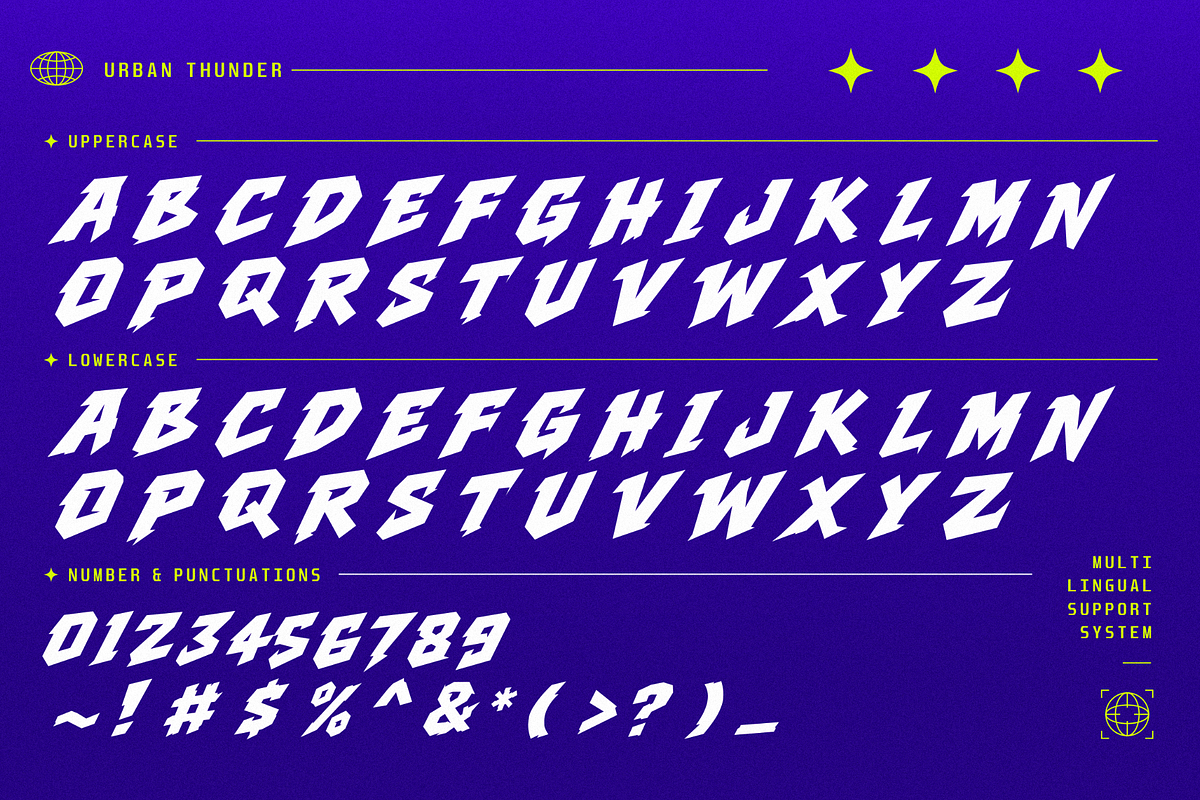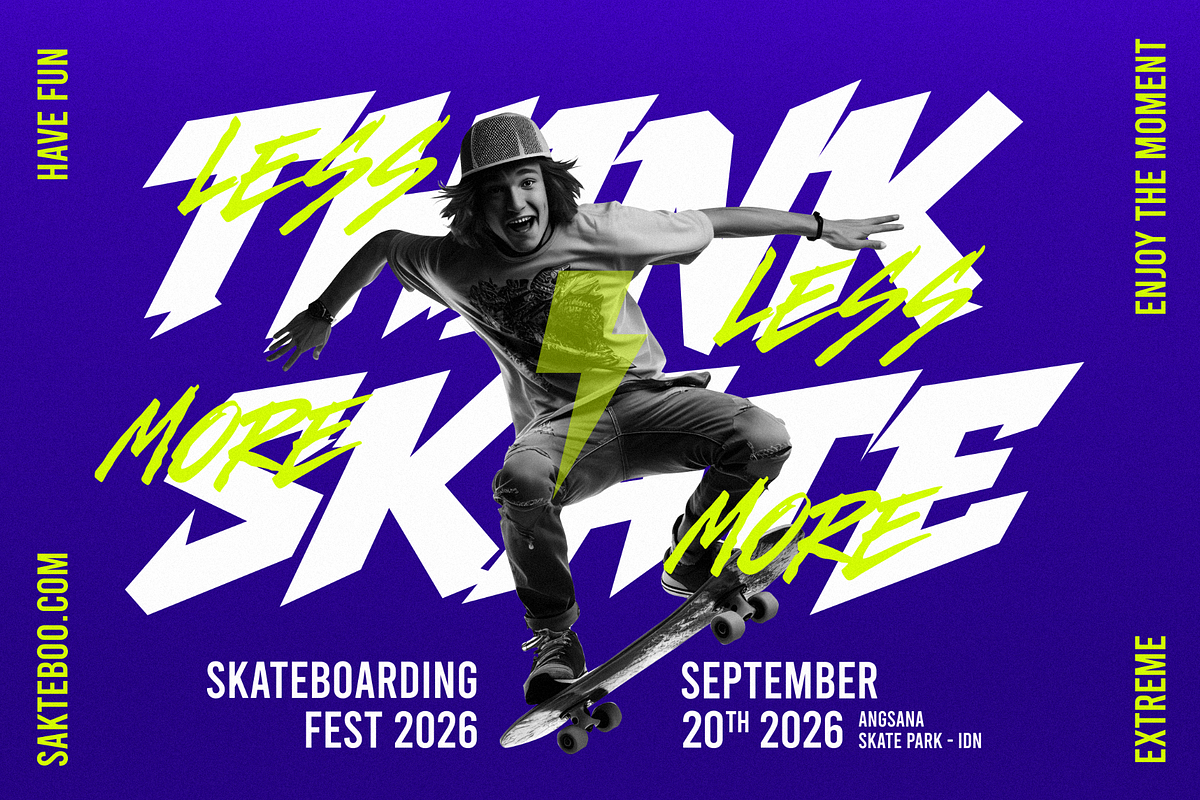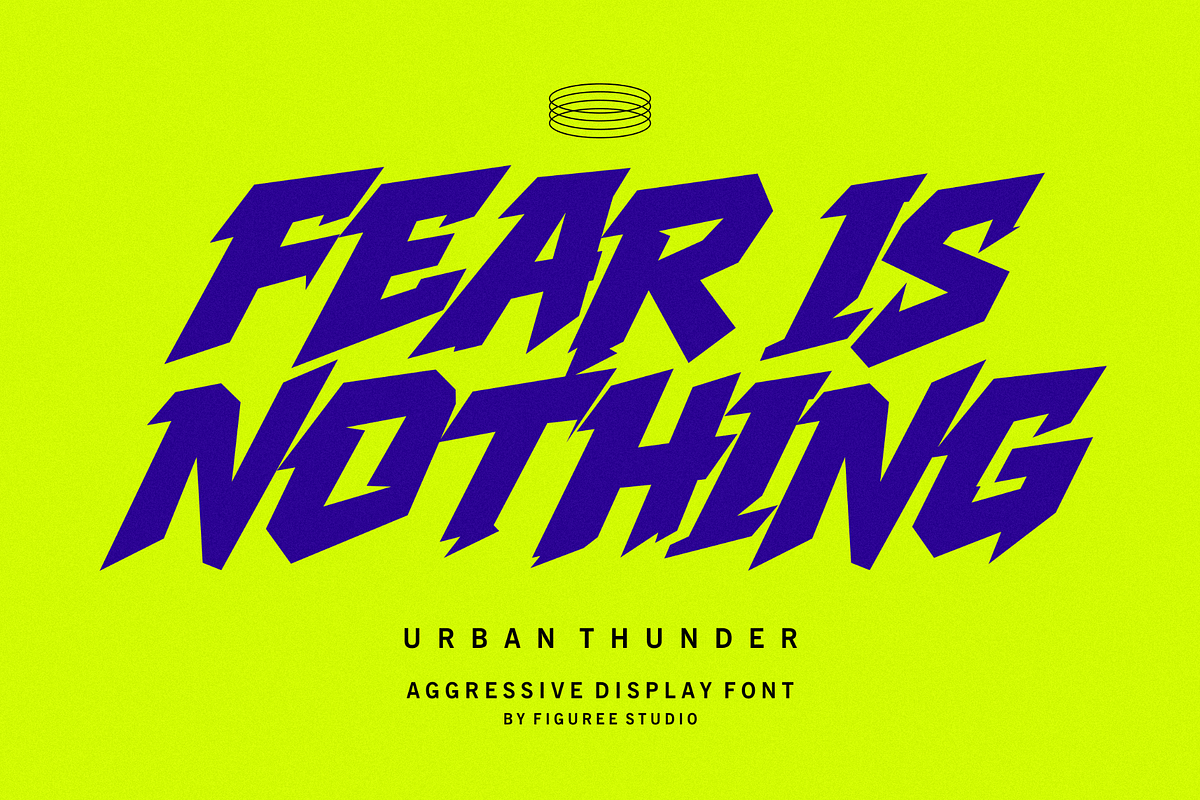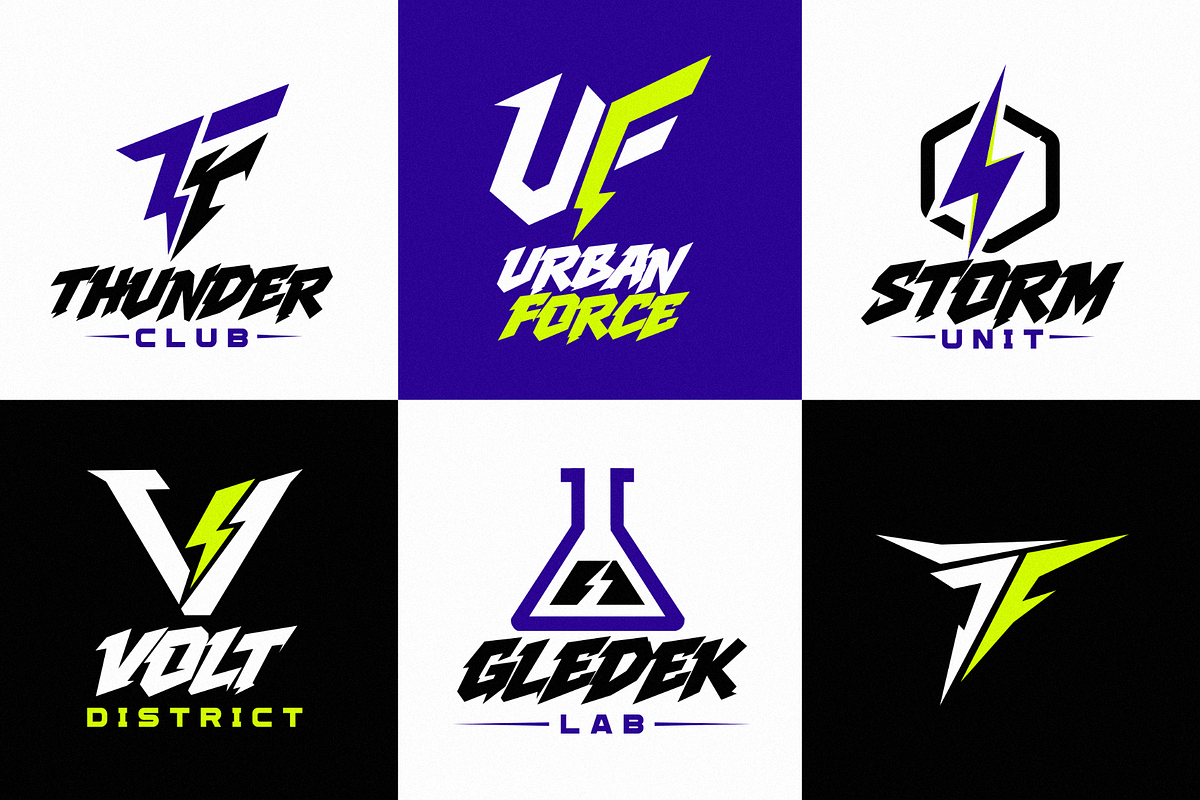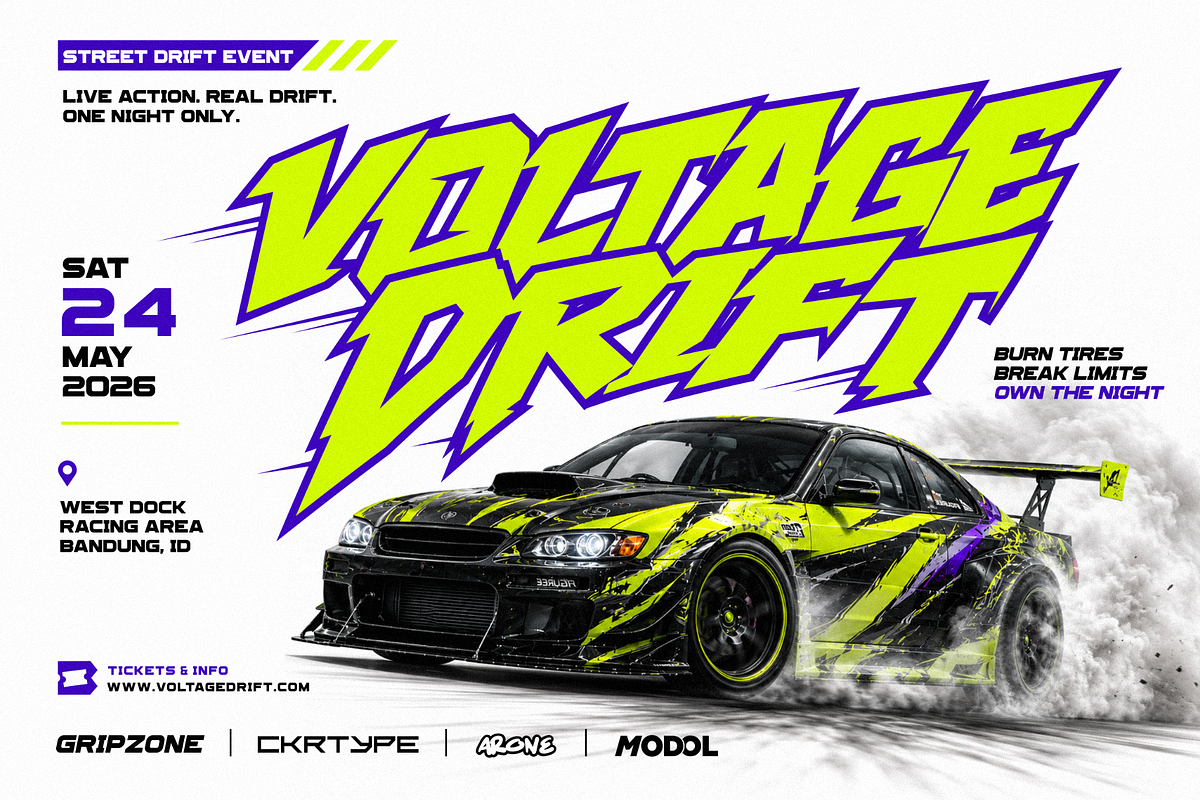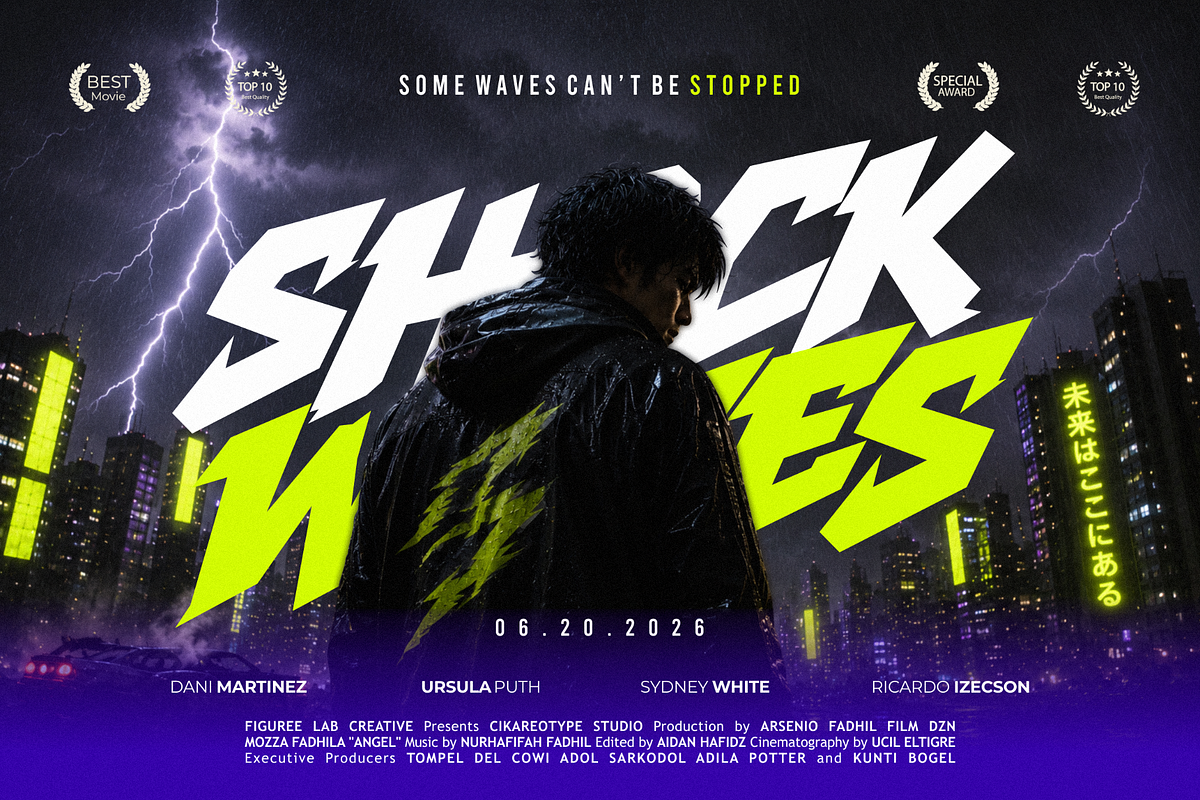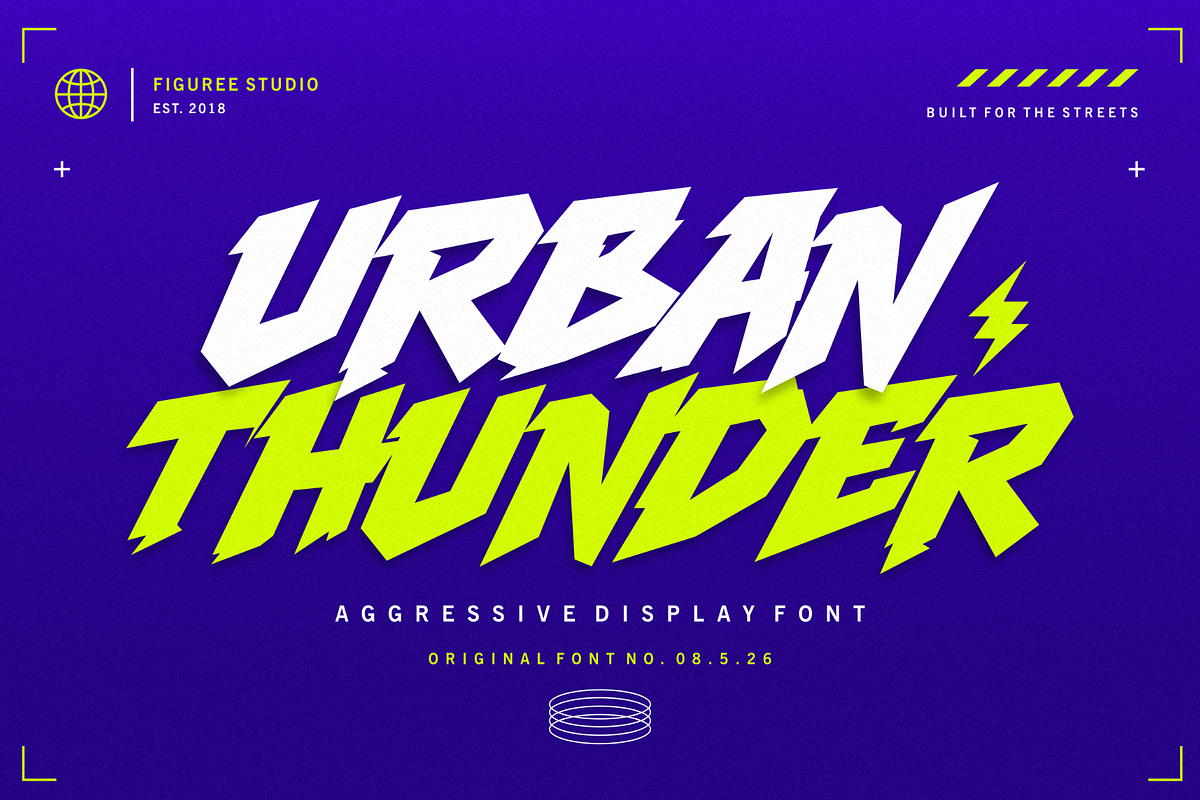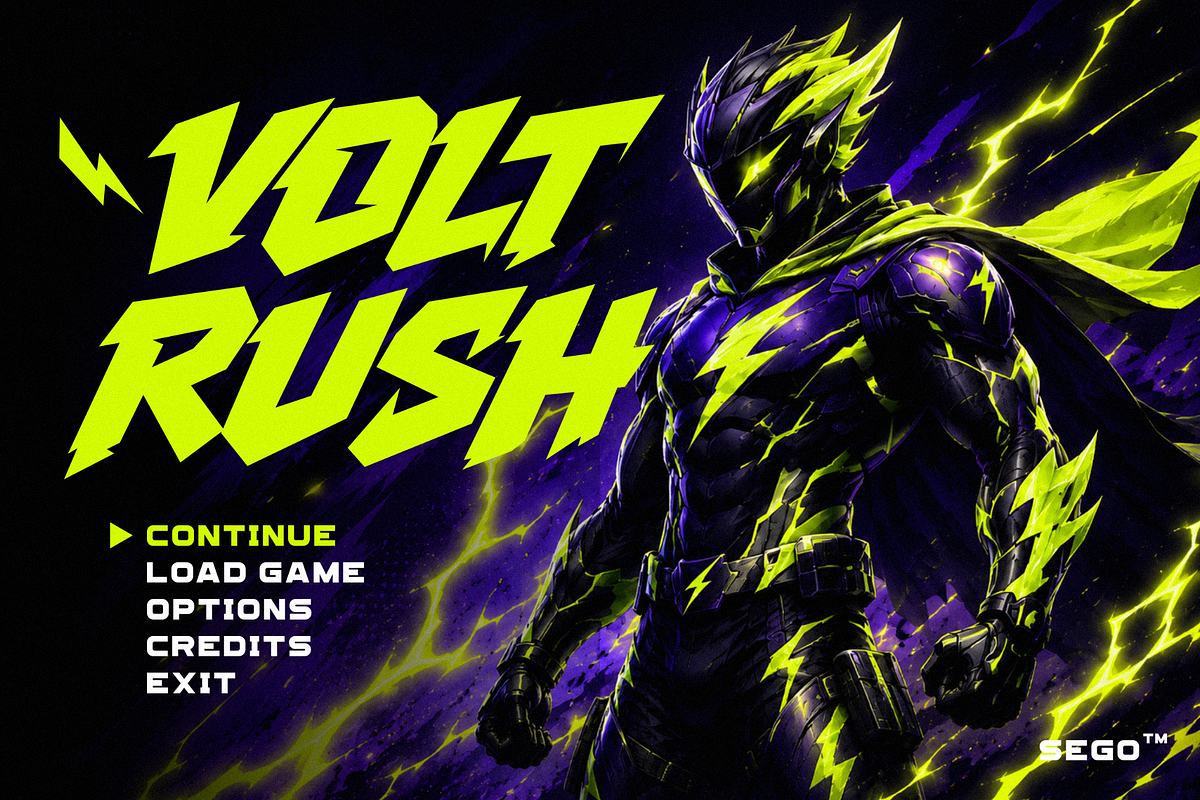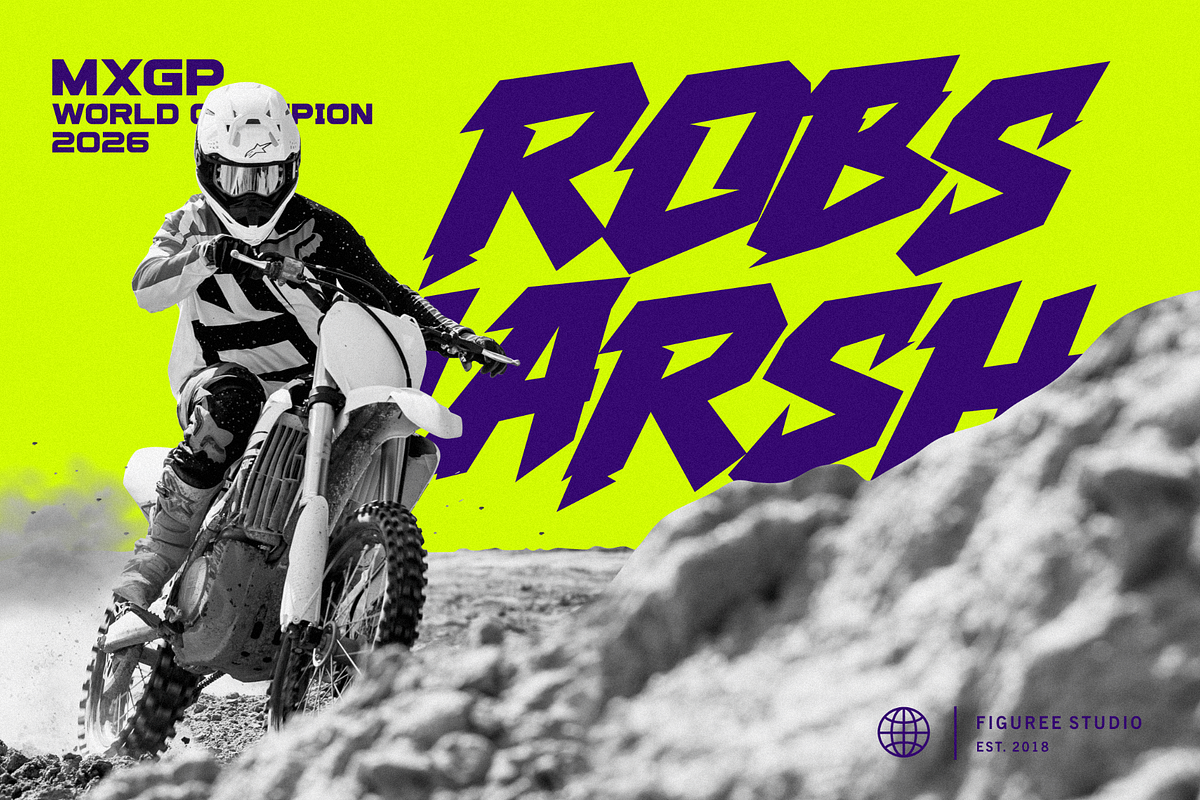
Urban Thunder - Aggressive Font
Urban Thunder is an Aggressive Display Font built for designs that need strong presence, sharp attitude, and instant visual weight. With an all-caps structure and a bold urban personality, this font is made for projects that refuse to look quiet.
Designed for creators who work with high-energy visuals, Urban Thunder brings a confident street-inspired mood into logos, posters, apparel graphics, packaging, social media artwork, and promotional design. It feels bold, direct, and expressive without losing its practical function as a display typeface.
For designers, brand owners, and creative studios, the right display font can shift the entire mood of a project. Urban Thunder gives your words a louder visual voice. It is especially useful when you want a title, headline, or brand mark to feel powerful from the first glance.
Design Style and Visual Personality
Urban Thunder carries an aggressive, bold, urban, and street-focused visual mood. Its all-caps letter style makes it naturally suited for headline-driven compositions where every word needs to feel intentional and impactful.
The overall personality leans strong and unapologetic. It fits designs that need motion, confidence, and a little visual grit. Think streetwear drops, music visuals, urban posters, bold product labels, sports graphics, and creative campaigns that need to stand apart from softer, more polished typography.
Because Urban Thunder is a display font, it works best when used with purpose. Use it for short phrases, titles, names, packaging callouts, and main branding elements. It is not intended to replace a clean body text font, but it can become the visual anchor that gives your layout strength.
Its urban tone makes it valuable for designers working on youth-focused brands, modern street culture concepts, event promotions, lifestyle merchandise, and digital content that needs immediate attention.
Best Use Cases for This Aggressive Display Font
Urban Thunder works best in projects where typography needs to be seen first. It can help a simple layout feel more energetic, more masculine, more rebellious, or more street-ready depending on the surrounding design direction.
Use Urban Thunder for logo concepts, brand identities, product packaging, poster titles, music artwork, album covers, YouTube thumbnails, sports graphics, event flyers, gaming visuals, streetwear designs, merchandise, stickers, labels, and bold social media posts.
For apparel designers, this font can bring a strong typographic attitude to t-shirts, hoodies, caps, and print-on-demand products. Its all-caps form is helpful for short slogans, brand names, collection titles, and statement graphics.
For packaging designers, Urban Thunder can add edge to product labels that need to look strong on shelves or in digital mockups. It works especially well for bold consumer goods, street-style products, sports-related items, and creative packaging concepts.
For content creators, this font can make thumbnails, reels covers, quote graphics, and promotional posts feel sharper and more confident. It is a strong choice when the design needs to stop the scroll with a bold typographic voice.
Allcaps
Aggressive, bold, urban, and street-inspired visual mood
Suitable for display typography, headlines, branding, posters, apparel, packaging, and social media visuals
Why Designers Love It
Designers love display fonts that can carry a concept quickly. Urban Thunder gives you that kind of visual shortcut. Instead of building attitude from scratch with excessive effects, you can start with a typeface that already has a strong urban voice.
Its all-caps design helps headlines feel unified and commanding. This makes it practical for layouts where you need a clear focal point, such as poster titles, logo marks, merchandise graphics, and campaign visuals.
Urban Thunder also gives brand creators a way to communicate confidence without relying on generic bold fonts. The aggressive display style feels more expressive and more specific, which helps a visual identity feel less predictable.
For studios working with multiple client categories, this font can be useful for streetwear brands, sports projects, music events, youth campaigns, gaming visuals, fitness branding, motorcycle-inspired graphics, and any project that needs a tougher typographic tone.